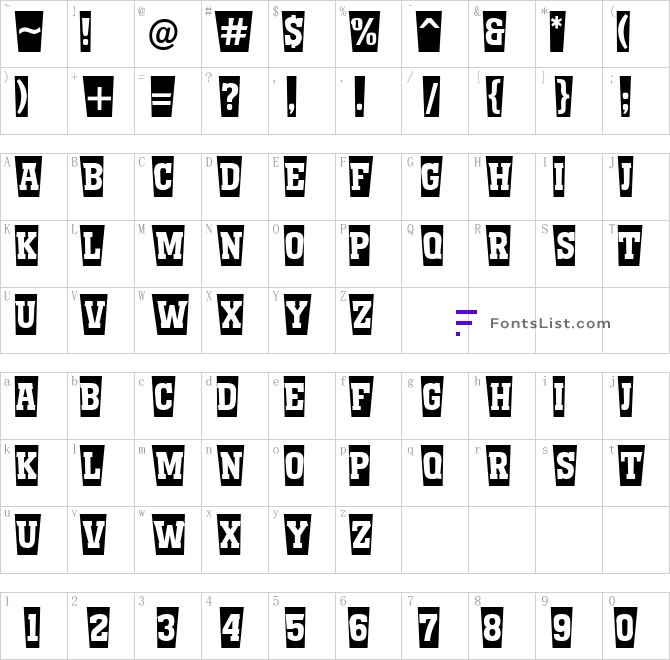
- Font Name:a_MonumentoTtlNrCmSw
- Subfamily:a_MonumentoTtlNrCmSw Bold
- Full Name:a_MonumentoTtlNrCmSw Bold
- PostScript:a_MonumentoTtlNrCmSw-Bold
a_MonumentoTtlNrCmSw-Bold.ttf is a very beautiful artistic font, a_MonumentoTtlNrCmSw-Bold.ttf is widely used in the design and printing of various books and pictures,a_MonumentoTtlNrCmSw-Bold.ttf has a strong visual impact,a_MonumentoTtlNrCmSw-Bold.ttf is a commonly used font in newspapers, magazines and books, and is used in posters, e-commerce Poster design, store design, logo design, font design and other fields.a_MonumentoTtlNrCmSw-Bold.